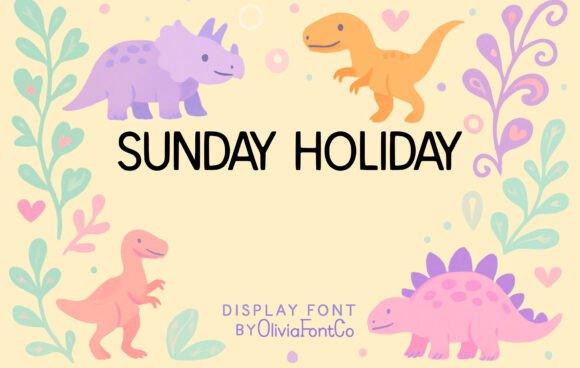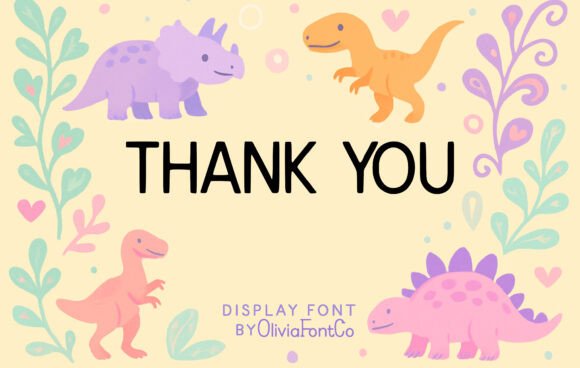
Introduction to Rendy Font
Have you ever been working on a creative project, pouring your heart and soul into every detail, only to be stumped by the perfect font to bring it all together? That’s where Rendy Font comes in – a true game-changer for designers looking to elevate their work to the next level. This high-quality font is designed to be a favorite among creatives, offering a perfect balance of style and legibility that will make your designs truly shine.
As a valuable design resource, Rendy Font is perfect for a wide range of projects, from magazine headlines and social media graphics to wedding invitations and branding materials. Its clean and modern aesthetic makes it easy to use as both a title and body text font, and its transparent background allows for seamless integration with any design element. Whether you’re a seasoned pro or just starting out, Rendy Font is a must-have for any creative project.
Key Features of Rendy Font
- High-quality design resource for creative projects, suitable for various applications.
- Comes with a transparent background, allowing for seamless integration with any design.
- Features a unique and stylish design, perfect for adding a touch of personality to any project.
- Supports a wide range of languages, making it a versatile font for international projects.
Honest Review: Rendy Font
I recently stumbled upon the Rendy Font, and I’m excited to share my honest thoughts on this design resource. As a designer, I’m always on the lookout for high-quality fonts that can elevate my creative projects.
The Rendy Font caught my attention with its sleek and modern design, perfect for anything from business presentations to social media graphics. One of the standout features of this font is its transparent background, which makes it incredibly versatile and easy to use.
- ✨ Transparent background for easy customization
- ⚠️ Limited font weights and styles, which may not be suitable for all design projects
- ⚠️ Some users may find the font too minimalist, lacking in character
Overall, I’m impressed with the Rendy Font. While it may not be perfect for every design project, it’s a great addition to any designer’s toolkit. The free download and transparent background make it a valuable resource for anyone looking to create high-quality designs.
Tips for Getting the Most Out of Rendy Font
Use Rendy Font with a transparent background to create a sleek and modern design. Experiment with different font sizes and colors to add visual interest to your creative project.
Rendy Font is perfect for designing logos, business cards, and social media graphics. You can also use it for creating presentations, reports, and documents.